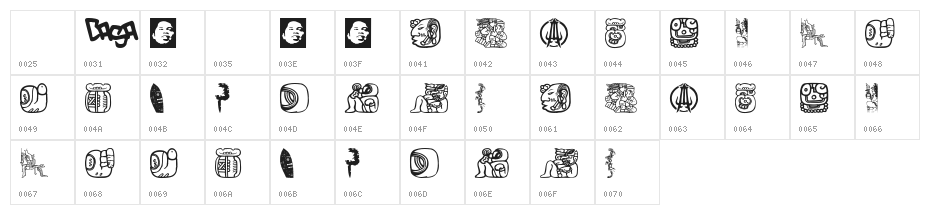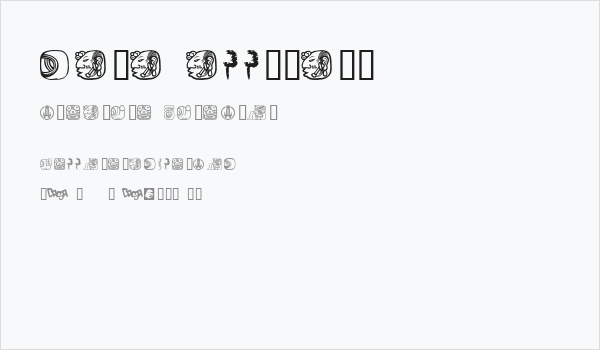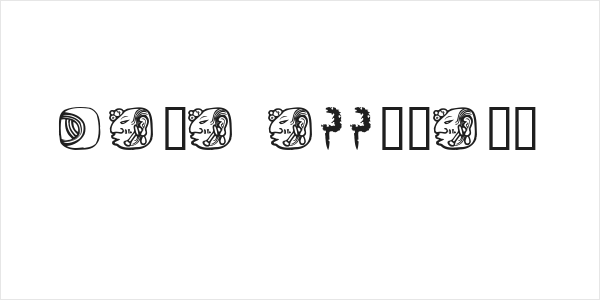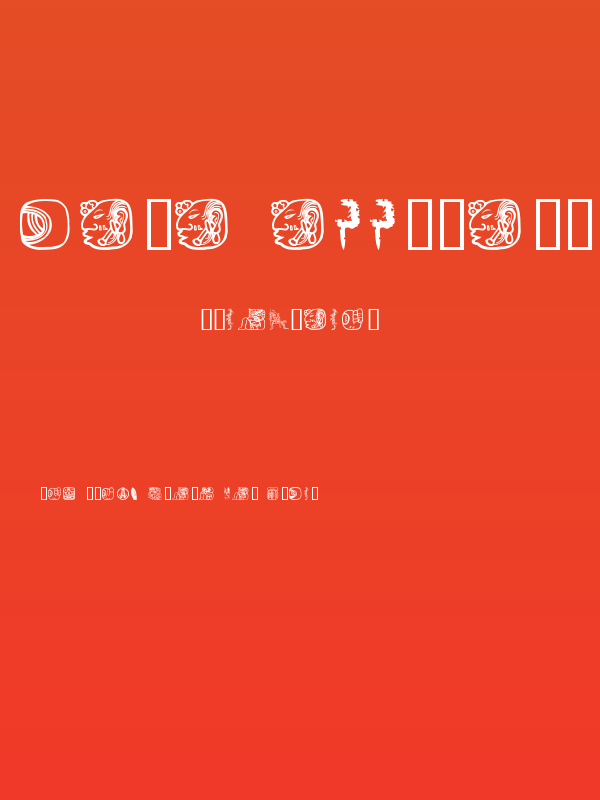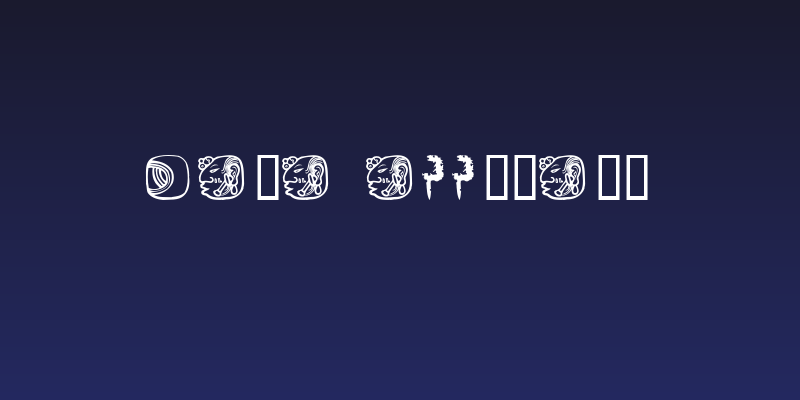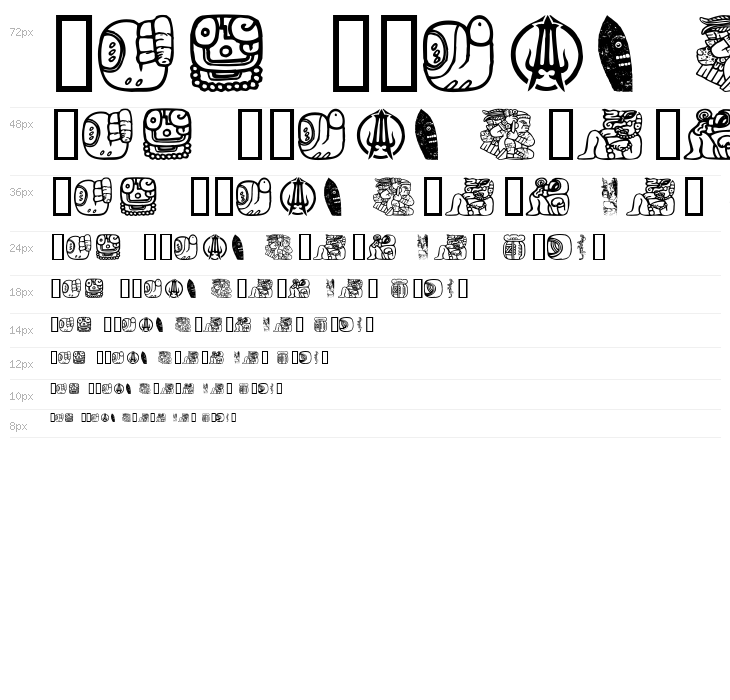
Maya Allstars Font
Maya Allstars Description
A decorative font inspired by ancient Mesoamerican glyphs, featuring intricate, pictorial letterforms that mimic Mayan hieroglyphics. Some characters are replaced with stylized illustrations and unique graphic elements.
| Overall Style | Decorative, Ancient, Pictorial |
| Use Case | Logos, Posters, Themed Titles, Art Projects |
| Proposed Projects | Posters, educational materials, themed event graphics, historical or cultural displays, creative art projects. |